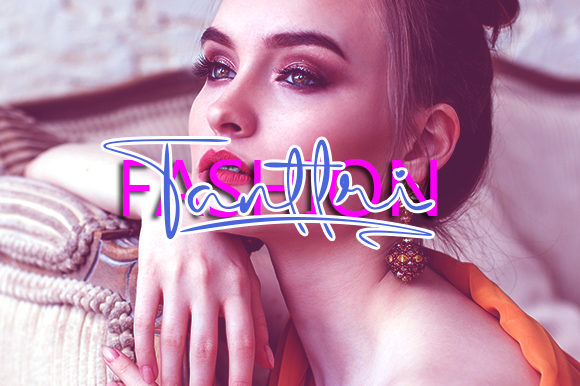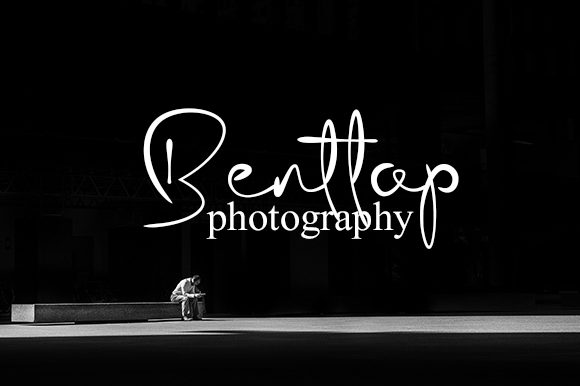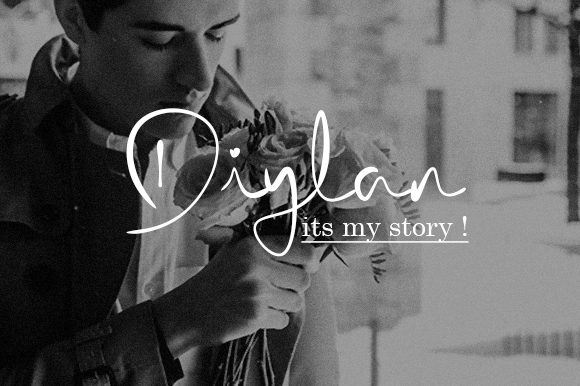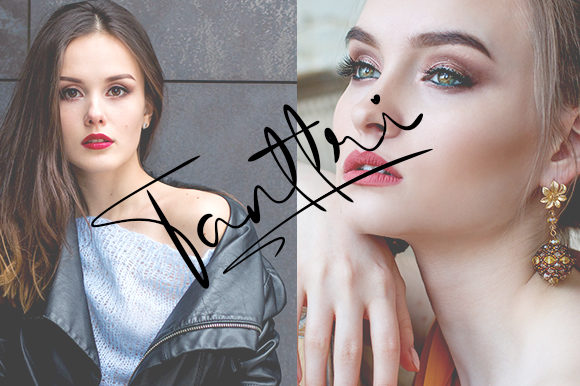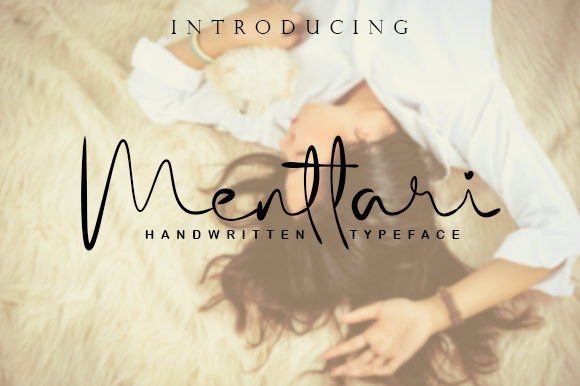
Menttari Font
About Menttari Font
Menttari is a beautiful and light handwriting font with a calm feel. It will add an incredible charm to any design project.